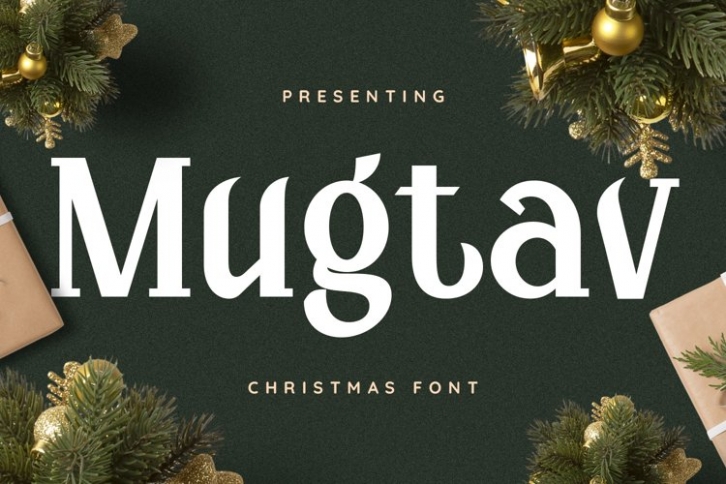
Mugtav is a gorgeous font that was realeased on September 25, 2021. The font can be used in many style contexts and design environments. Perfect for invitations, magazines, websites, logos, and more! It was designed by plusstore and the file size is 20.71 MB. Thanks for checking out this font!